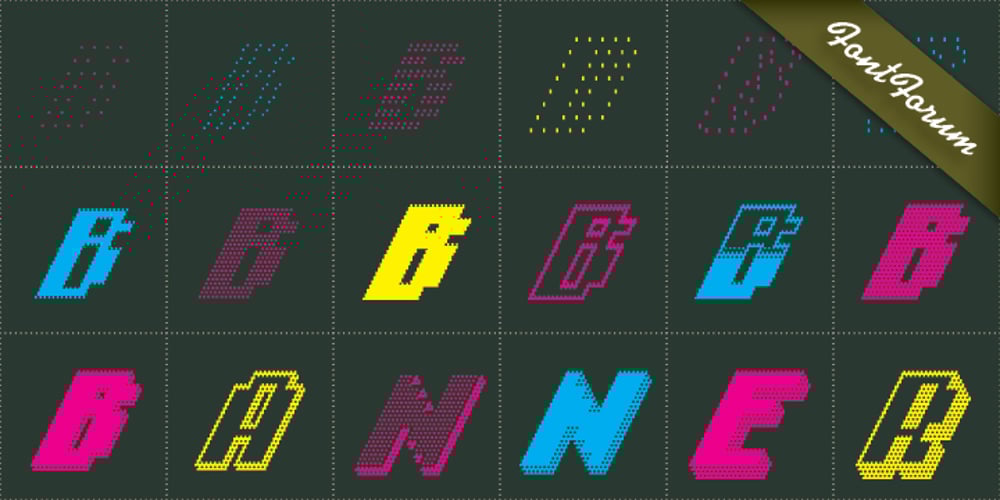
Banner
Banner font
Banner Font Family was designed by Jan Koller and published by URW Type Foundry. Banner contains 24 styles and family package options. Jan Koller designed the Banner typeface family especially for the creation of animated web banners. Banner is best used at 80p without antialiasing. The family comes in 24 styles which, in combination, create great, unusual screen effects. Three different animation modells provide the basis: extrusion, cutting in/out by ‘pixelation’, outline pixel rotation. The available flash clip listed in the Related Links below demonstrates some of the effects. Take a look! The swf clip runs in any web browser (drag & drop) but you need the flash player plugin. Apart from animation use, Banner also works well in print. Since all 24 styles are identical in width and kerning, you can set several styles on top of each other, maybe using different colours for each style. Look at the nice effects yourself!